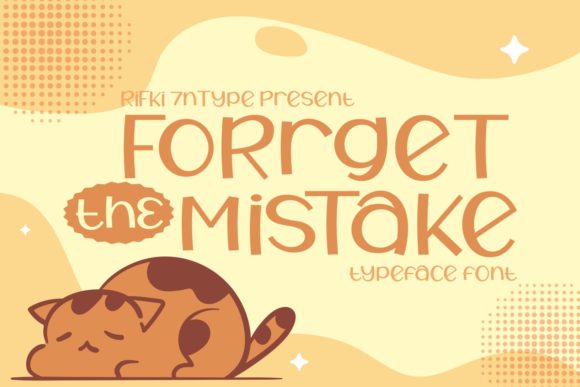
Introducing Forget The Mistake Font Family: A Captivating Typographic Masterpiece for Digital Innovations!
Prepare to be amazed by Forget The Mistake, a stunning display font family specifically designed for the dynamic world of LED displays. Crafted with meticulous attention to detail by the renowned type foundry, 7ntypes, this font collection redefines the boundaries of visual communication, transforming ordinary designs into extraordinary masterpieces.
Embark on a typographic journey like no other as you discover the unique characteristics of Forget The Mistake Font. Its remarkable style, reminiscent of vibrant neon signs, adds an electrifying charm to any design project. Whether you're creating captivating headlines, eye-catching branding elements, or dynamic digital signage, Forget The Mistake Font Family is your ultimate choice for captivating audiences and leaving a lasting impression.
Unleash your creativity and immerse yourself in a world of limitless possibilities. Forget The Mistake Font Family is meticulously crafted to excel in a wide array of design applications. From branding projects that demand a bold and memorable identity to wedding designs that exude elegance and sophistication, Forget The Mistake Font Family effortlessly adapts to your creative vision.
Elevate your invitations, signatures, logos, and labels with a distinctive touch of brilliance. Forget The Mistake Font Family brings a touch of magic to every design element, transforming them into works of art. Its versatility extends beyond traditional print media; it shines in the realm of digital signage, illuminating your messages with a captivating radiance that commands attention.
With Forget The Mistake Font Family, you're not just downloading a font; you're acquiring a powerful tool that ignites imaginations and transforms ideas into visual wonders. It's a font family that empowers you to create designs that resonate with audiences, leaving an indelible mark on their minds.
Seize this opportunity and immerse yourself in the world of Forget The Mistake Font Family. Experience the transformative power of typography and unlock the full potential of your creative vision. Let Forget The Mistake Font Family guide you towards design excellence, leaving a legacy of captivating creations that will inspire and amaze for generations to come.